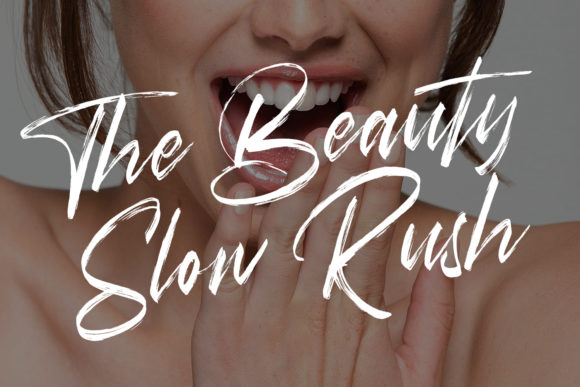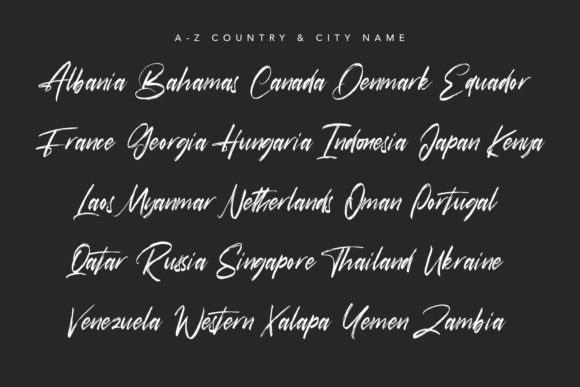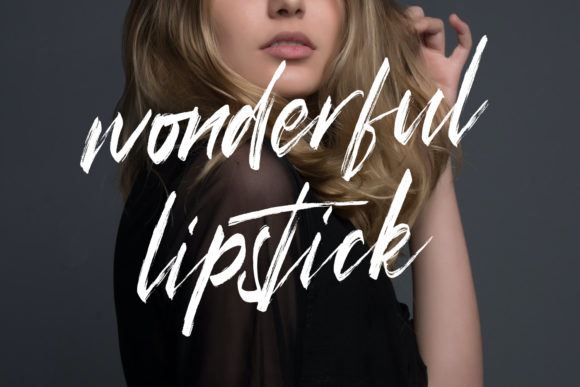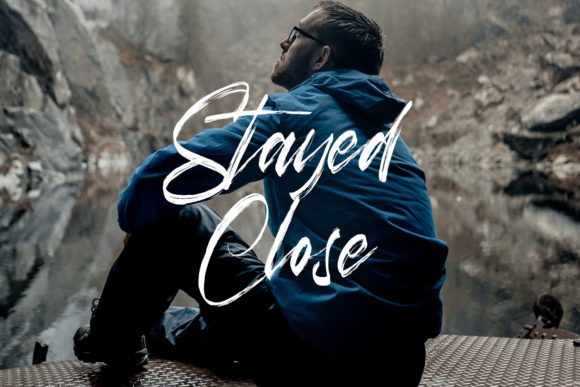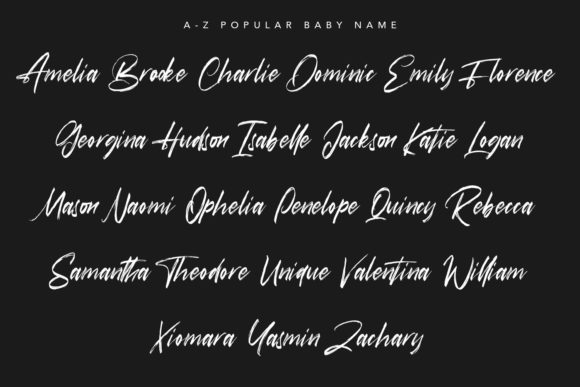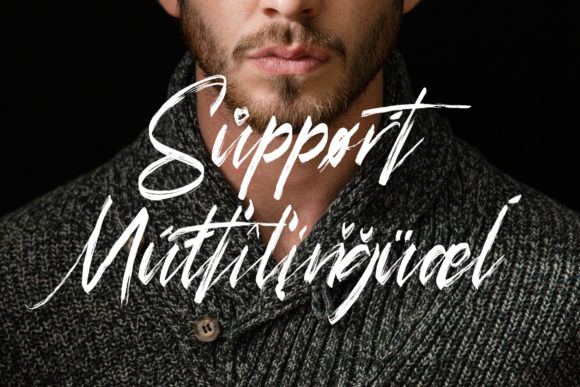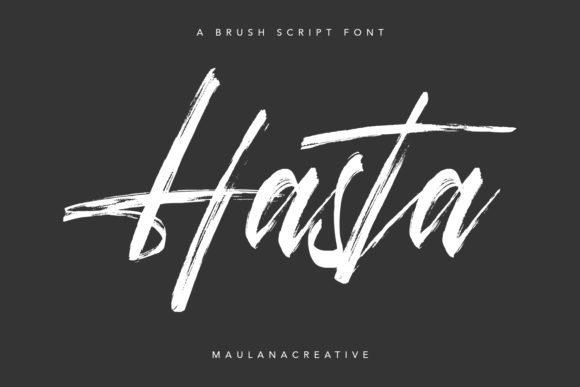
Discover the Elegance of Hasta Font: Elevate Your Designs to New Heights
Are you on the hunt for a font that exudes elegance, sophistication, and a touch of modern flair? Look no further than Hasta Font, a stunning handwritten typeface that is sure to capture your heart. Designed with meticulous care, Hasta Font seamlessly blends classic calligraphic influences with a contemporary twist, making it the perfect addition to your design arsenal.
The Essence of Hasta Font
Hasta Font is more than just a collection of letters; it’s an exquisite handwritten font that has been masterfully crafted to become a true favorite among designers and crafters alike. Its classy calligraphic roots are evident in its fluid strokes and elegant letterforms, yet it feels refreshingly modern and versatile. This unique blend of traditional and contemporary elements makes Hasta Font an exceptional choice for a wide range of design projects.
Why Choose Hasta Font?
So, what sets Hasta Font apart from other fonts in its category? Here are a few compelling reasons why Hasta Font should be your go-to choice for your next design project:
- Elegance and Sophistication: Hasta Font’s calligraphic influences lend an air of sophistication and elegance to any design, making it perfect for high-end branding, weddings, and luxury products.
- Versatility: Whether you’re working on a digital project, a print design, or a handmade craft, Hasta Font adapts effortlessly to various mediums and styles.
- Contemporary Appeal: Despite its classic roots, Hasta Font feels refreshingly modern, ensuring your designs look current and on-trend.
- Easy to Read: The clear and flowing letterforms of Hasta Font ensure excellent readability, making it suitable for both headings and body text.
Applications of Hasta Font
The versatility of Hasta Font makes it suitable for a myriad of design applications. Here are some ideas to get you started:
- Branding and Logos: Create a lasting impression with Hasta Font, perfect for luxury brands, boutiques, and creative agencies.
- Wedding and Event Design: Add a touch of romance and elegance to wedding invitations, stationery, and event branding.
- Packaging Design: Elevate your product packaging with Hasta Font, ideal for high-end cosmetics, gourmet foods, and artisanal products.
- Digital Design: Use Hasta Font in your website headers, social media graphics, and digital marketing materials to add a touch of sophistication.
- Crafting and DIY Projects: Hasta Font is also perfect for crafters, suitable for use in handmade cards, scrapbooking, and other paper crafts.
How to Make the Most of Hasta Font
To truly make Hasta Font shine in your designs, consider the following tips:
- Pair it with Neutrals: Combine Hasta Font with neutral backgrounds or complementary fonts to let its elegance take center stage.
- Experiment with Colors: While Hasta Font looks stunning in classic black and white, don’t be afraid to experiment with colors that match your brand or design theme.
- Play with Sizes: Use Hasta Font in various sizes to create visual hierarchy and add depth to your designs.
Hasta Font is a true gem in the world of typography, offering a unique blend of elegance, versatility, and modern appeal. Whether you’re a designer looking to elevate your branding and marketing materials or a crafter seeking to add a touch of sophistication to your handmade projects, Hasta Font is sure to exceed your expectations. With its exquisite handwritten design and classy calligraphic influences, Hasta Font is poised to become your new favorite go-to font. So why wait? Fall in love with Hasta Font today and bring your projects to the highest levels!